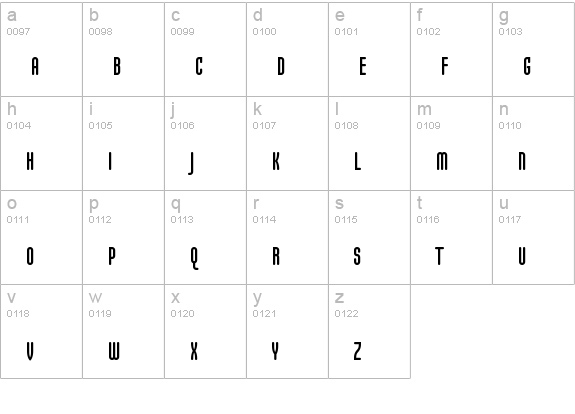
ModulaRoundSansSmallCaps Regular Font Details
ModulaRoundSansSmallCaps Regular is the standard, neutral variant in the ModulaRoundSansSmallCaps typeface family \xE2\x80\x94 well suited to general body text, paragraphs, and standard typographic work.
ModulaRoundSansSmallCaps Regular font is a versatile and modern typeface that combines the elegance of small caps with a rounded design aesthetic. This font is perfect for adding a touch of sophistication to your projects while maintaining a friendly and approachable vibe. Not only does ModulaRoundSansSmallCaps Regular offer a clean and crisp look, but it also includes a full set of small caps for added emphasis and style. Whether you're designing a professional document or creating eye-catching branding materials, this font is sure to elevate your work to the next level. The best part? ModulaRoundSansSmallCaps Regular is available for free download at FontsMarket.com. So go ahead and enhance your designs with this beautiful and functional typeface today!